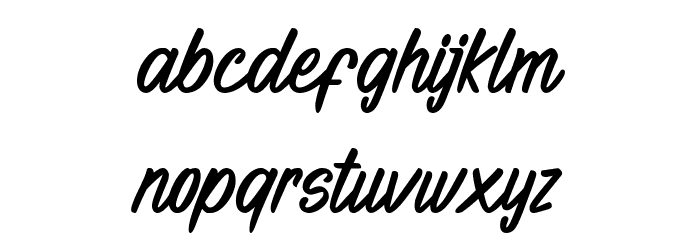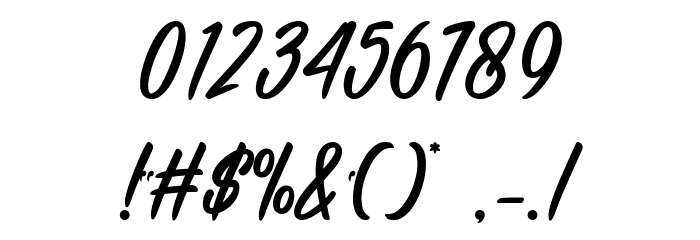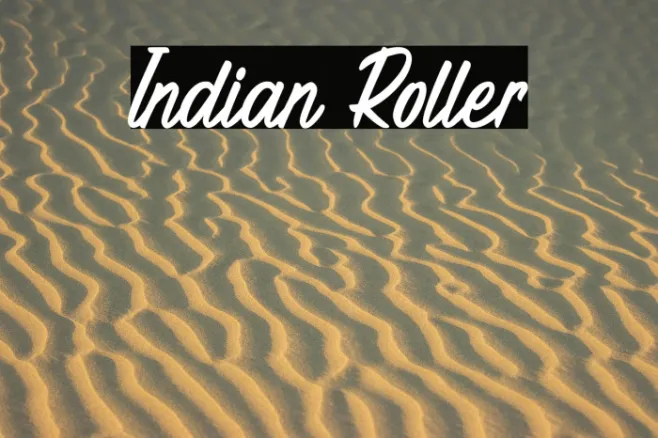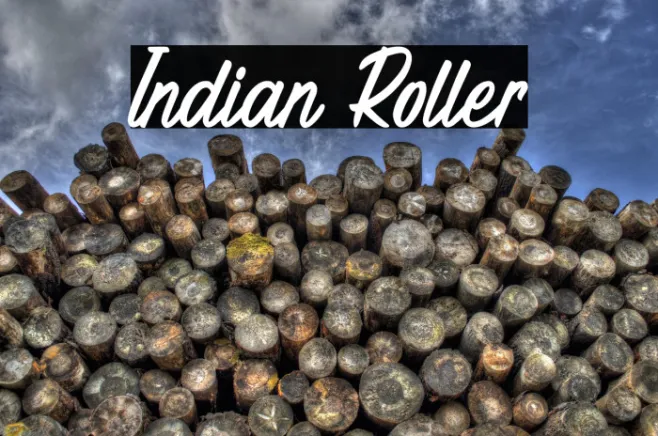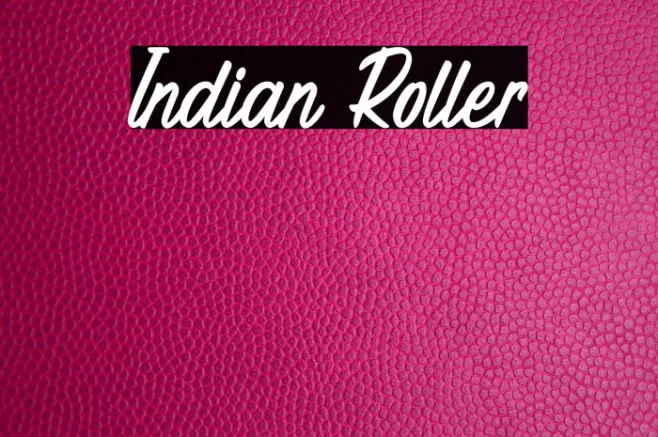
Indian Roller Font
This font features a dynamic and flowing script style, characterized by its smooth, cursive letterforms that convey a sense of elegance and fluidity. The uppercase letters are bold and slightly slanted, giving a sense of motion and energy, while the lowercase letters maintain a consistent flow with rounded edges and connected strokes. The numerals are clear and legible, matching the overall cursive theme. Special characters are well-integrated, maintaining the font's cohesive style. This font is ideal for projects that require a personal touch, such as invitations, greeting cards, and branding materials.
A dynamic and flowing script font with elegant, cursive letterforms.
- Proposed Projects: Ideal for invitations, greeting cards, branding, and personal projects.
- Overall Style: Elegant
- Use Case: Logos, Invitations, Greeting Cards